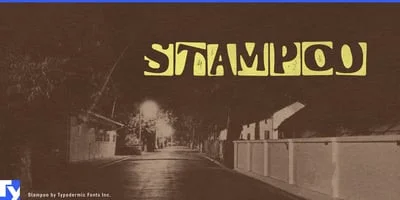
Stampoo Font
Stampoo Font is perfect for rubber stamp reproductions, official document designs, vintage office aesthetics, postal service branding, government form layouts, administrative correspondence, bureaucratic materials, official certification graphics, stamped approval designs, vintage business communications, and any project that requires authentic stamp character with official documentation appeal.
What makes Stampoo Font exciting is its remarkable ability to replicate the authentic texture and authority of traditional rubber stamp impressions through distressed letterforms that capture the imperfect charm and official credibility of hand-stamped documents. This distinctive typeface features irregular ink distribution with authentic stamp characteristics that convey official authority while maintaining the tactile authenticity of physical rubber stamp applications. The font's stamped character adds instant official credibility and vintage documentation appeal to any design, making it perfect for brands requiring authentic bureaucratic aesthetics and official communication standards.
Stampoo Font comes in multiple font families including Regular, Bold, Light, Distressed, Condensed, and Official variations, offering designers comprehensive options to create stamped compositions and achieve the perfect rubber stamp aesthetic for documentation-focused design projects.
Whether you're developing official documentation branding, creating vintage office materials, or designing authentic bureaucratic campaigns, Stampoo Font provides the ideal solution for projects demanding authentic stamp character and official documentation sophistication. This textured typeface excels in display applications where official presence is essential, ensuring your designs communicate bureaucratic authenticity and stamped authority. The distressed character and stamp styling of Stampoo Font make it an indispensable tool for designers who prioritize official documentation, vintage office culture, and authentic rubber stamp aesthetics in their typographic selections.